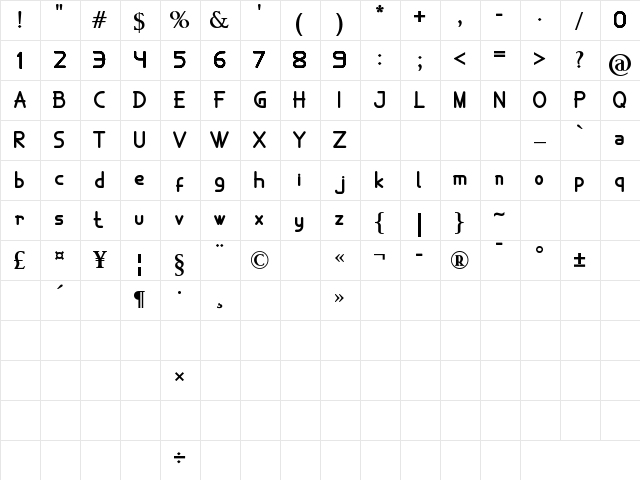
Orcef Bold Font Preview
Orcef Bold
Design Context for Orcef Typeface
Orcef is a composed and adaptable typeface that performs quietly and consistently across a wide range of design contexts. The heavy weight commands attention and anchors typographic hierarchies.